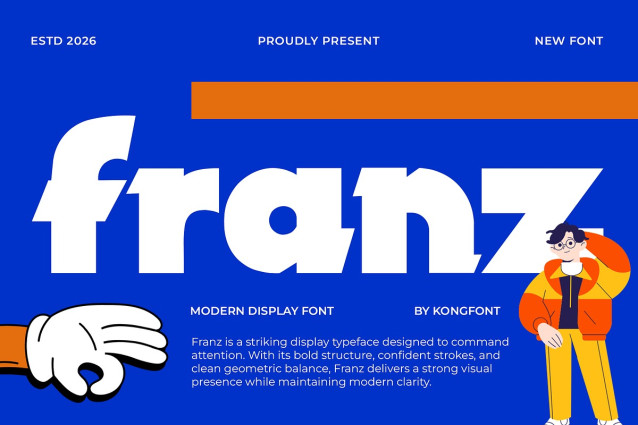
Franz Font
Franz Font is a modern display font crafted to deliver bold visual impact with a clean contemporary style. Designed with strong letterforms, sharp structure, and confident spacing, Franz is perfect for grabbing attention in large size typography.